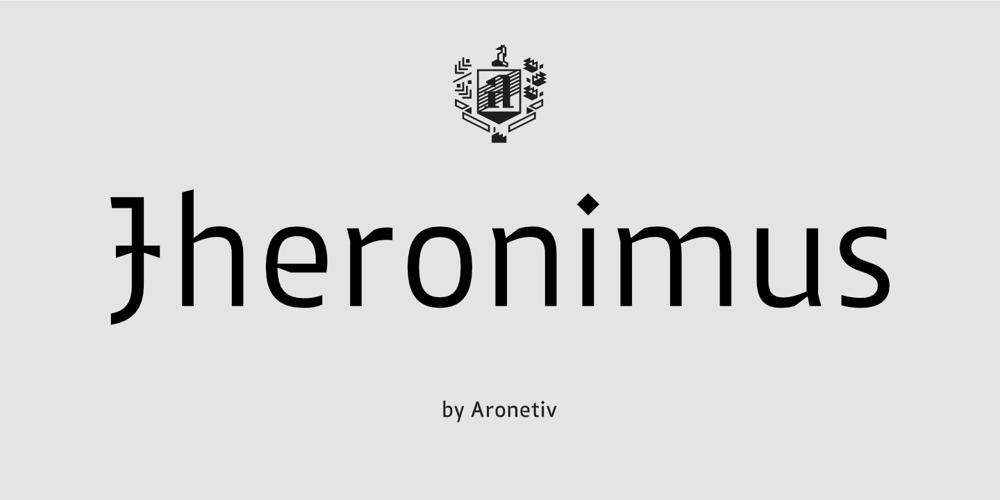
Jheronimus Font Family was designed by Aleksey Popovtsev and published by Aronetiv. Jheronimus contains 13 styles and family package options. Jheronimus is a neo-humanistic grotesque. A font with an open aperture. It has straight terminals and a moderated height of the lowercase characters. Jheronimus is a font with a uniform ordered rhythm. Well readable on the screen in small size. Consistent letter proportions. The rounded elements are pill shaped and the font has pronounced connections strokes. Punctuation marks are well decorated. Jheronimus will satisfy the demanding typographer. There are oldstyle figures in the best traditions of humanism. The bright recognizable character is combined with a clear form. This creates a sharp, crystal impression. Jheronimus is suitable for the design of an ambitious, temperamental text. It is stylistically similar to the paintings of the Dutch artist Hieronymus Bosch. From this comes its name.